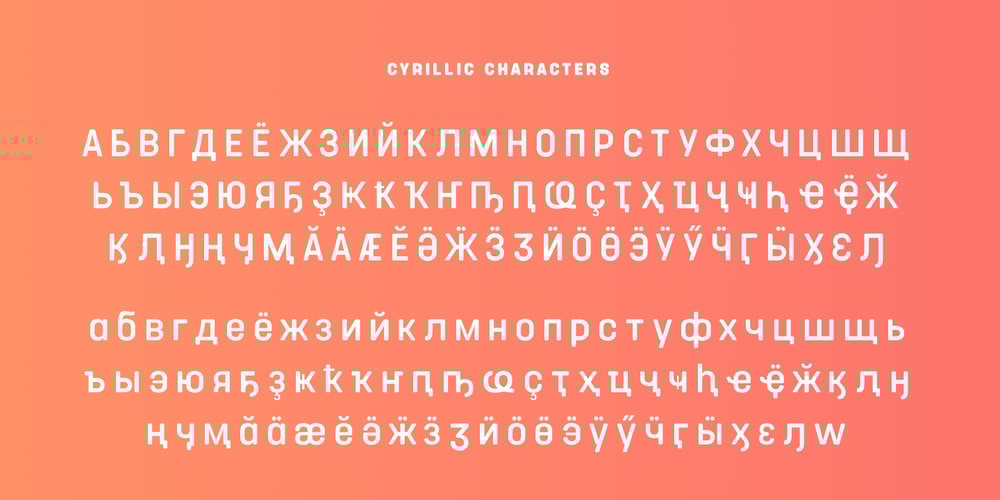
Project Soft
Project Soft font
Project Soft Font Family was designed by Dan Jones and published by TypeUnion. Project Soft contains 20 styles and family package options. Project Soft is the more playful version of our 2017 release, Project Sans. The font features the same 10 weights and matching italics but while the Sans version was more structured, the Soft version shows a cheeky side that creates a vast array of potential. The font still features substantial language support as well as specifically designed italics that feature a unique look for certain characters.